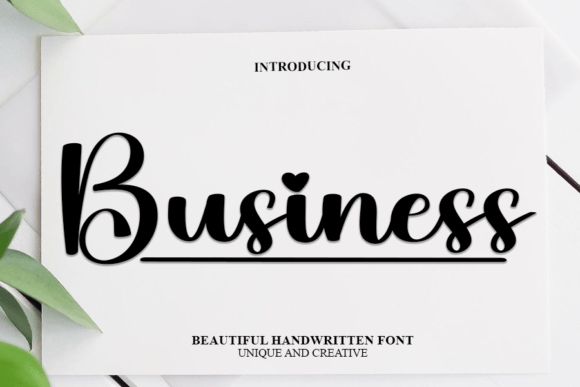
The Ultimate Guide to Business Font: Elevate Your Designs with a Modern Twist
Have you ever been in the middle of a design project, and suddenly, you’re stuck on finding the perfect font? I recall a recent experience where I was working on a branding project for a trendy coffee shop. The client wanted a font that was both modern and elegant, but I just couldn’t seem to find the right fit. That’s when I stumbled upon the Business Font, and it completely transformed my design. In this article, we’ll dive into the world of Business Font, exploring its features, and how to make the most of it in your designs.
A Personal Encounter with Business Font
I was working on a tight deadline, and my client was being particularly picky about the font. They wanted something that was “not too thin, not too thick, but just right.” I spent hours scouring font websites, but nothing seemed to fit the bill. That’s when a colleague recommended Business Font, describing it as a “cool handwritten font with a modern vibe and spotless form, inspired by classic calligraphy.” Intrigued, I decided to give it a try, and it ended up being the perfect solution for my project.
An Honest Review of Business Font
So, what makes Business Font so special? Here are some of the things I love about it:
- ✨ Balanced and varied: The font has a perfect balance of thick and thin lines, making it easy to read and visually appealing.
- ✅ Modern vibe: Business Font has a fresh, modern feel that’s perfect for brands looking to establish a contemporary image.
- 💯 Spotless form: The font’s clean lines and curves make it perfect for use in a variety of design applications, from logos to headings.
While Business Font is an excellent choice, it’s not without its quirks. Here are a few things to keep in mind:
- 🤔 Limited use in body text: While Business Font is perfect for headings and titles, it may not be the best choice for body text due to its stylized nature.
- ⚠️ Requires OpenType support: To get the most out of Business Font, you’ll need to use it in a design application that supports OpenType features.
The Story Behind Business Font
Business Font was designed with the goal of creating a modern, yet elegant font that would meet the needs of designers and businesses alike. Inspired by classic calligraphy, the font’s creator aimed to craft a font that was both stylish and legible. With its balanced and varied design, Business Font has become a popular choice for designers looking for a font that’s both modern and timeless.
| Font Name | Business Font |
| Author | PAYJHOshop |
| What is Business Font? | Business Font is a modern, handwritten font with a spotless form and a balanced, varied design. |
| Is Business Font suitable for body text? | While Business Font is perfect for headings and titles, it may not be the best choice for body text due to its stylized nature. |
| Does Business Font support OpenType features? | Yes, Business Font supports OpenType features, including glyphs and stylistic alternates. |